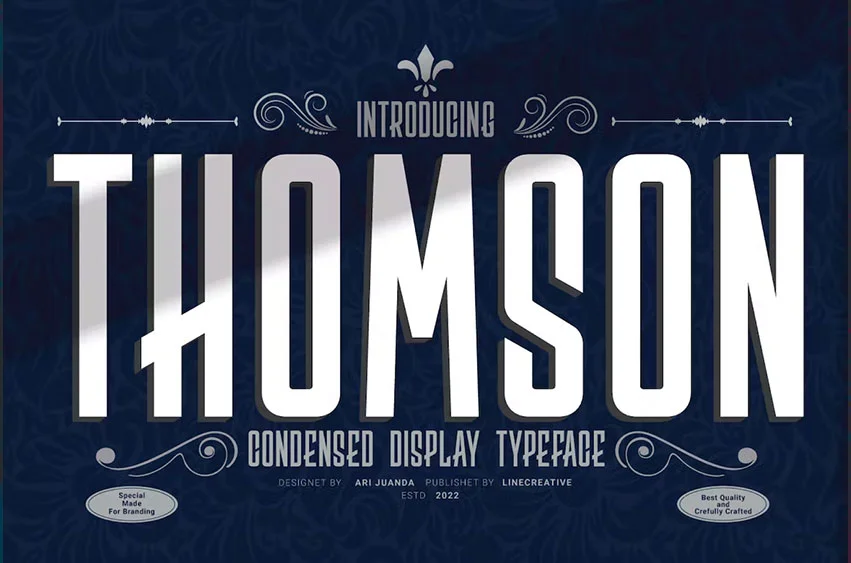
Thomson Font is a condensed font with a modern look, It’s Perfect for branding, logo design, shirts, name card, magazine layouts, headers, or oven large-scale artwork.
Thomson offers you:
- Upper and Lowercase characters (All Caps)
- Stylistic alternates
- Numbers and Punctuation
- Multilingual Support (Latin Western Europe)